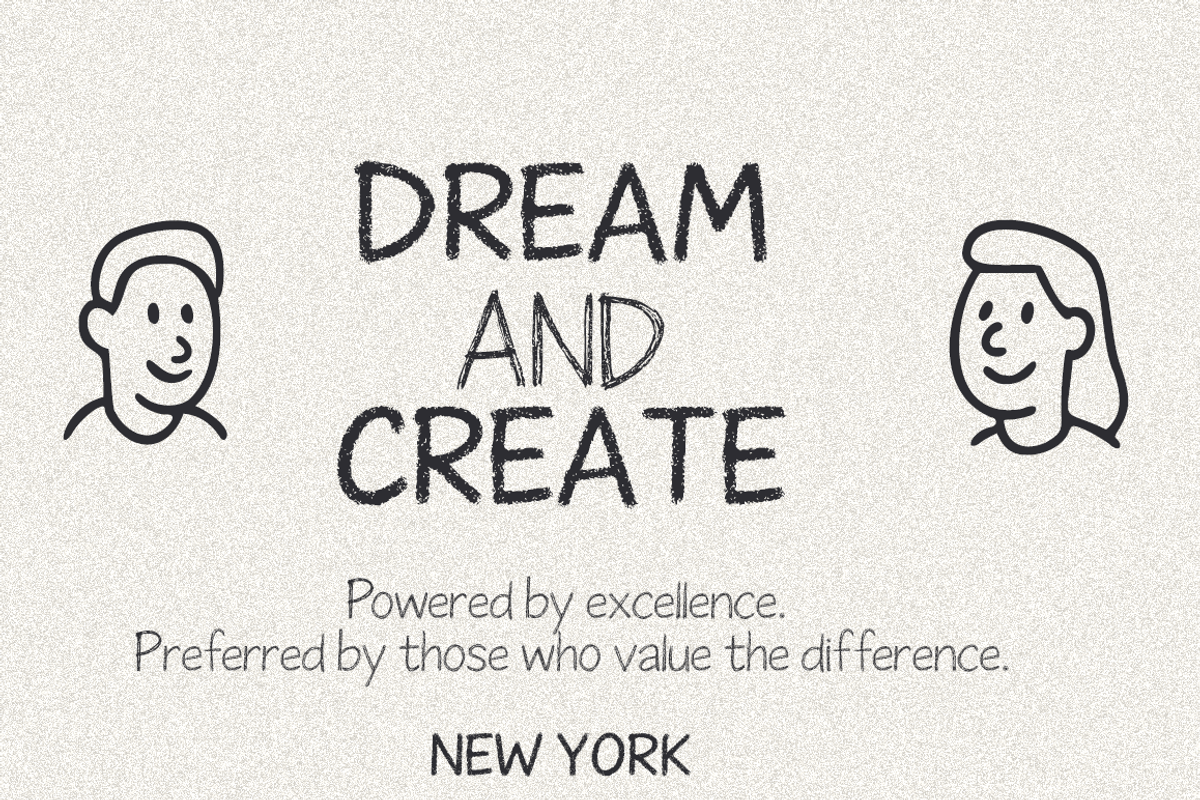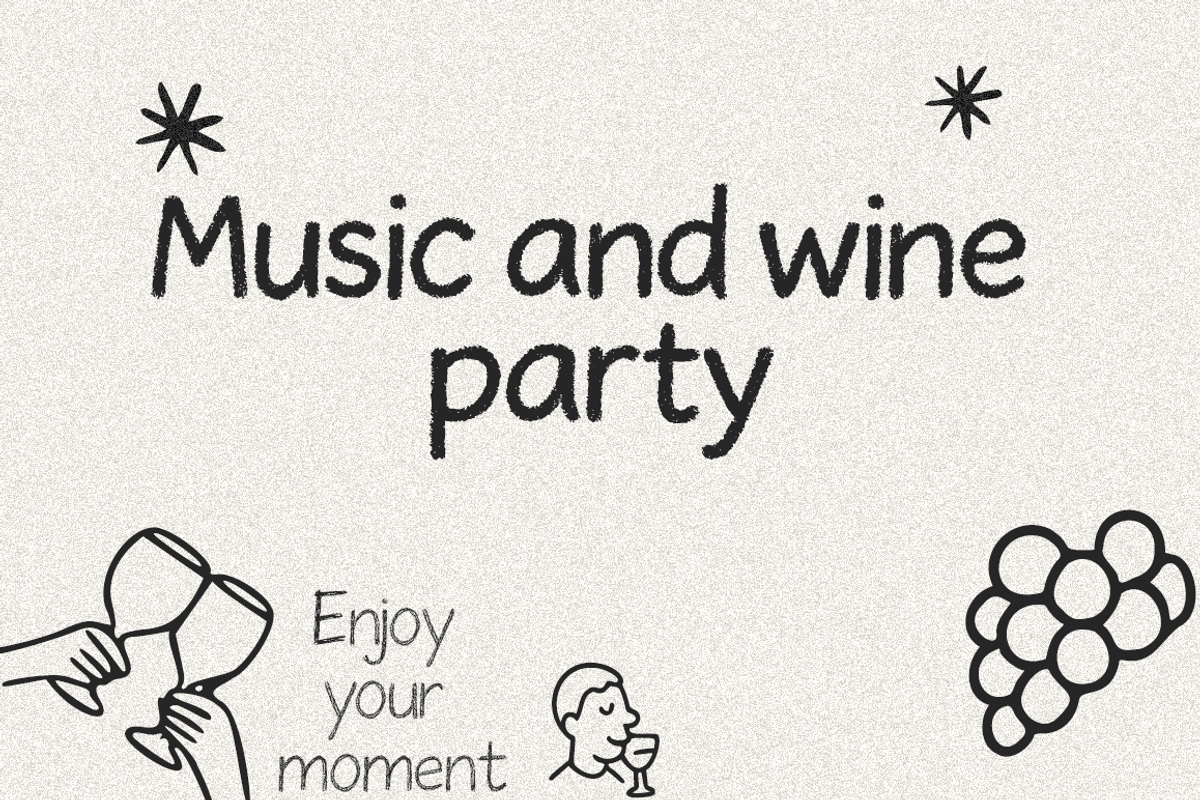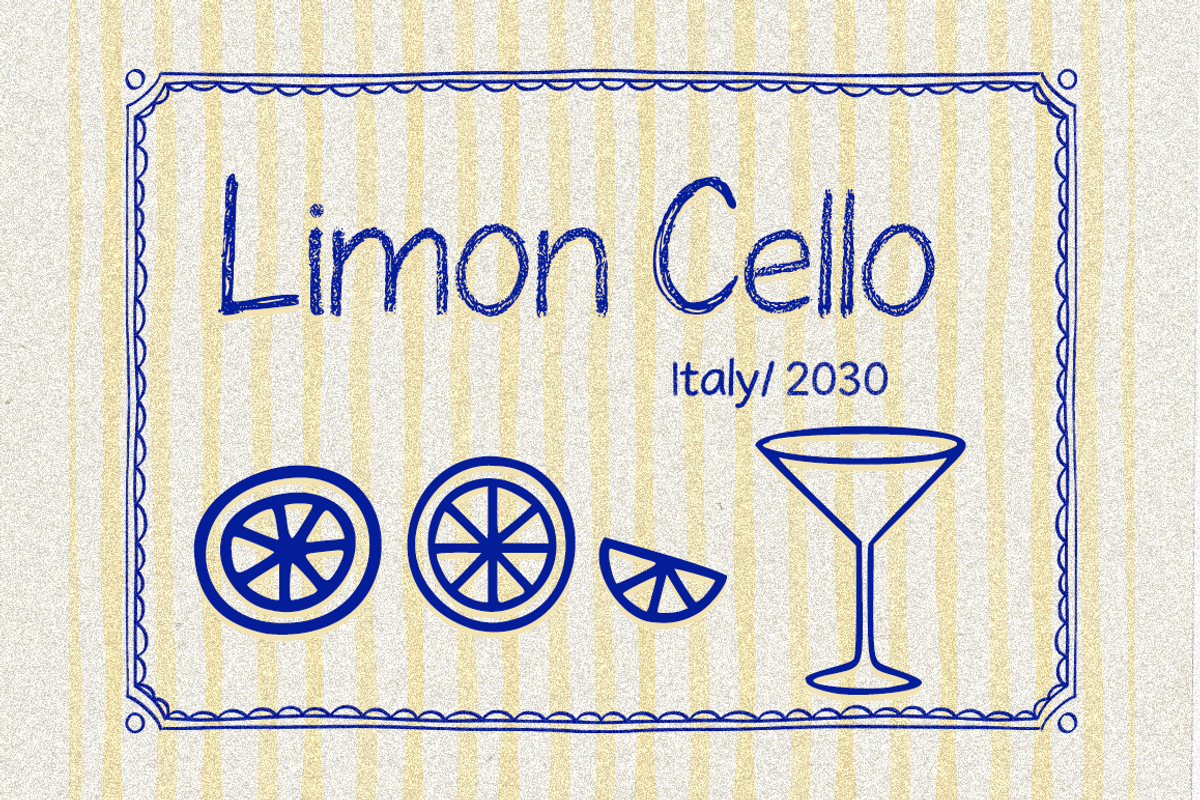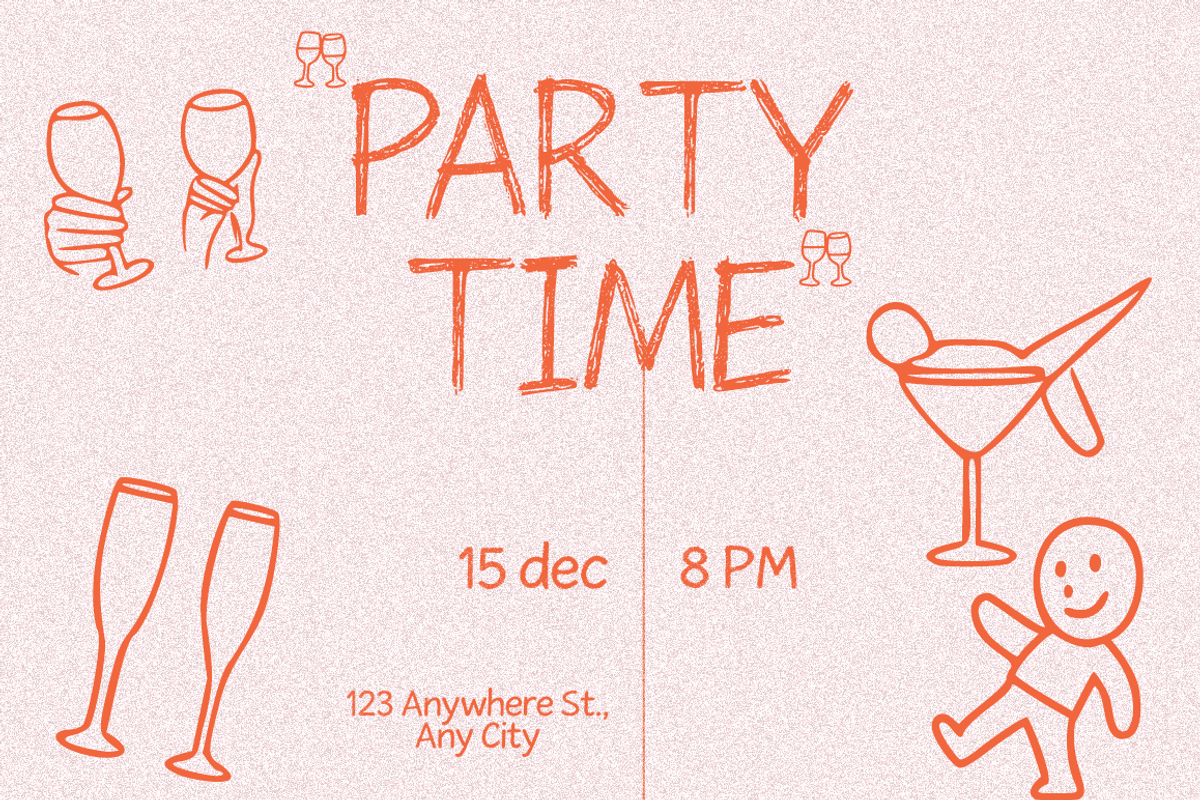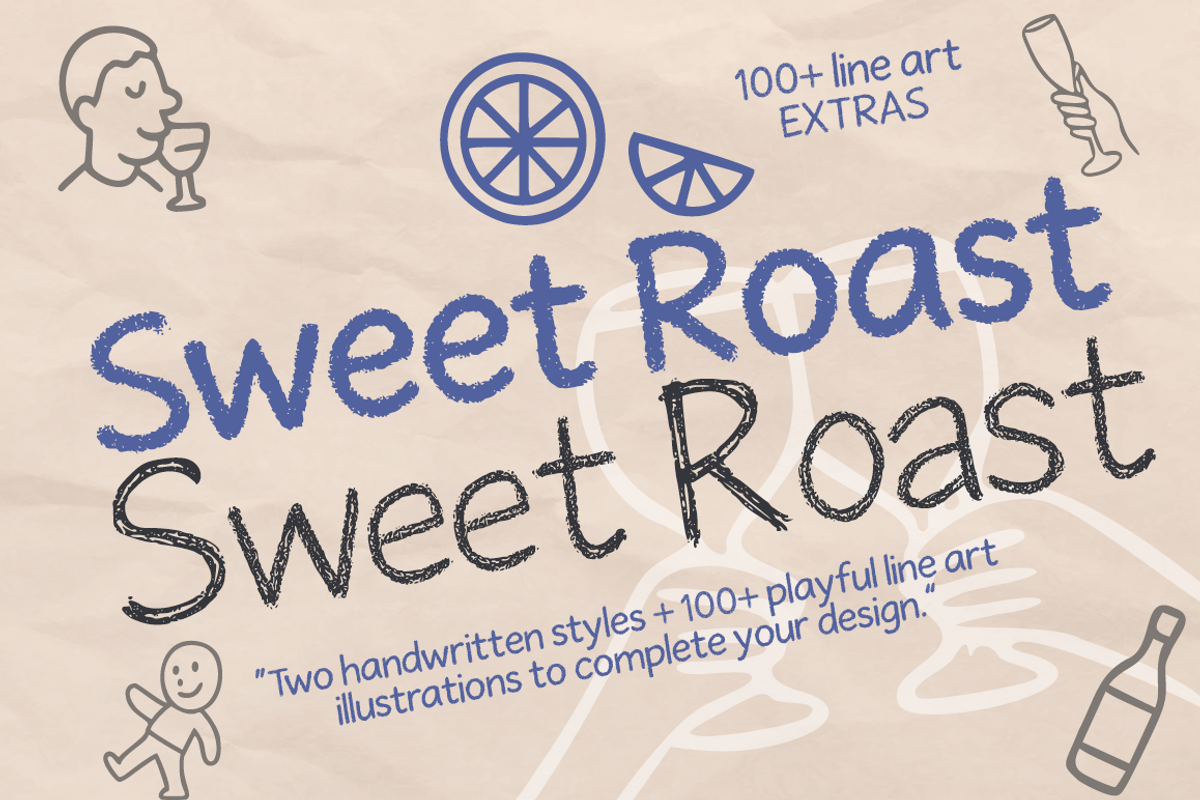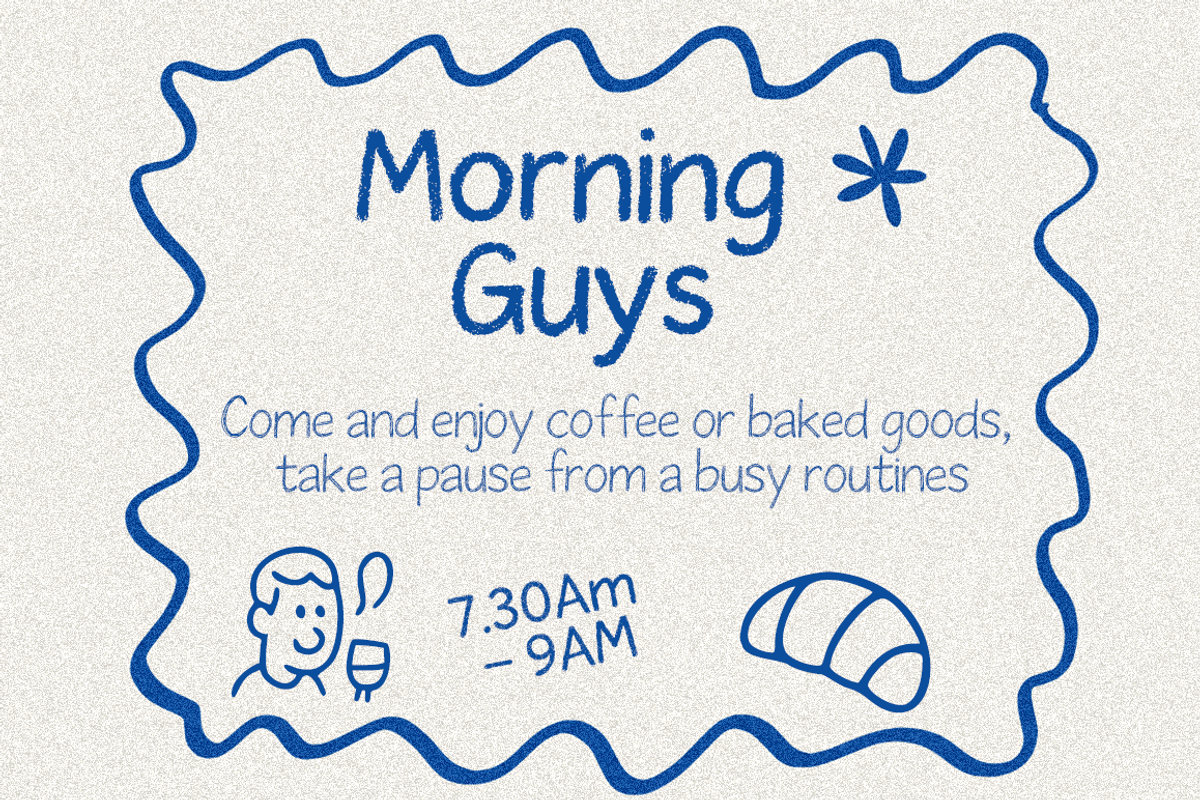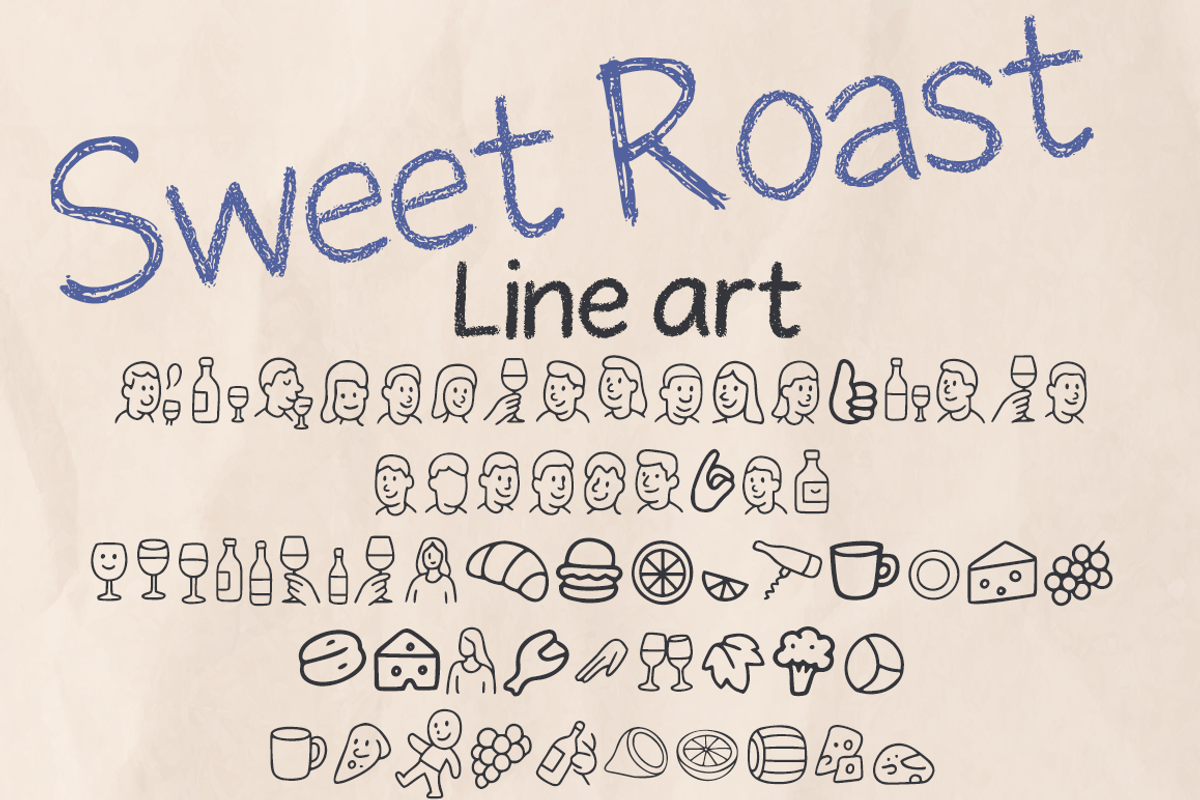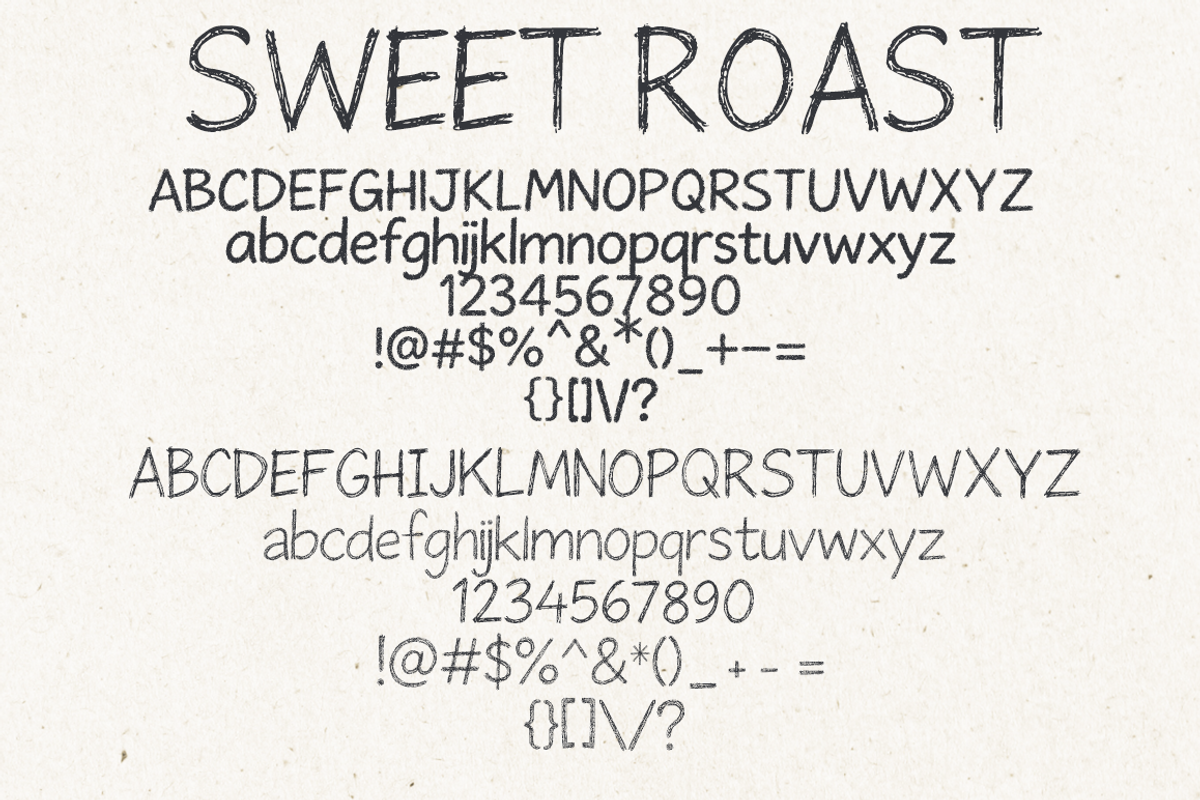
Sweet Roast Playful Handwritten Font
Sweet Roast — Playful Handwritten Font + 100+ Line Art Extras Sweet Roast is a handwritten font pack featuring two expressive and organic lettering styles. The textured strokes resemble crayon-like marks, adding a warm, friendly, and creative touch to any design project. This font set includes over 100 playful line art illustrations themed around food, drinks, citrus, and casual doodles — ready to complement and elevate visual compositions.